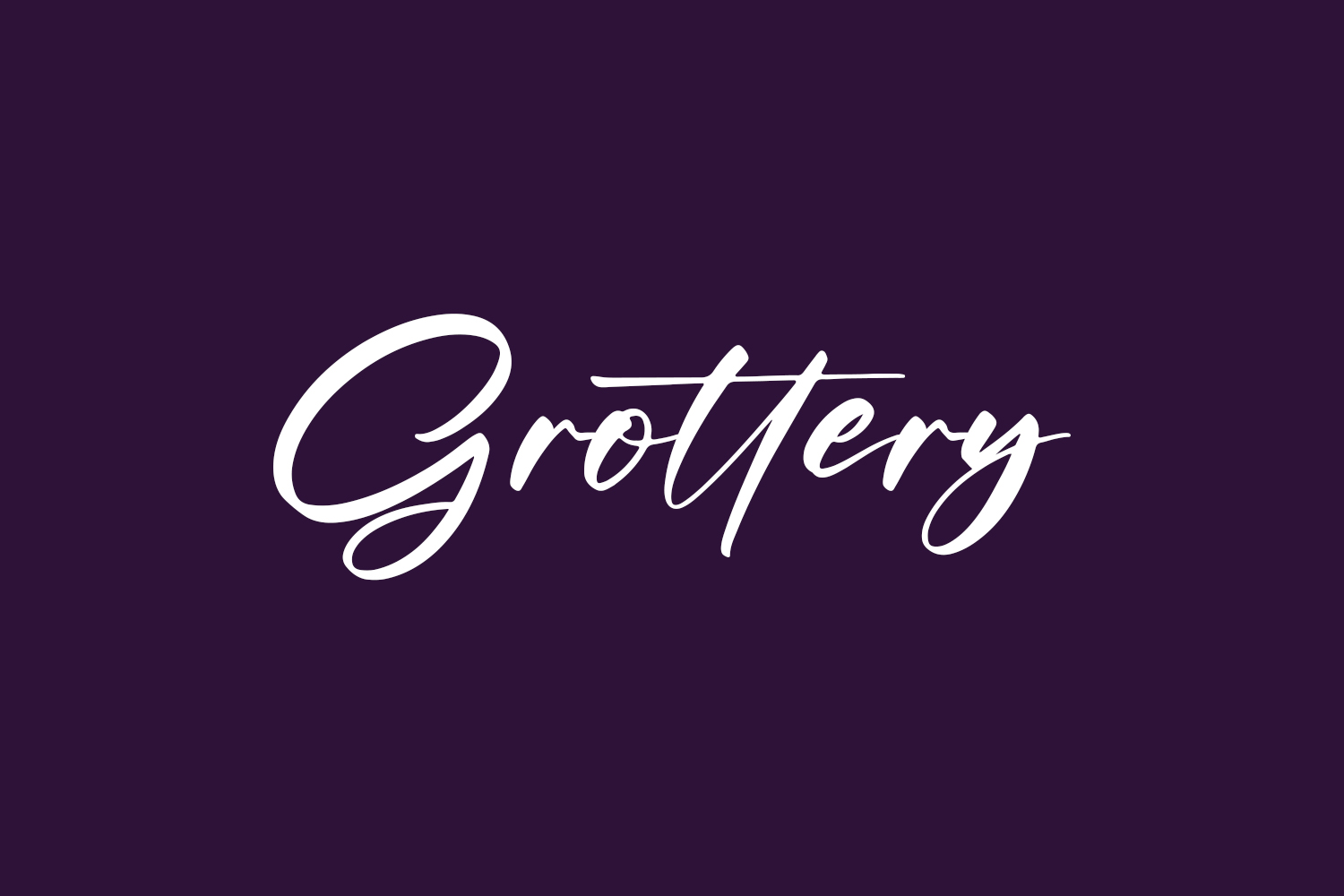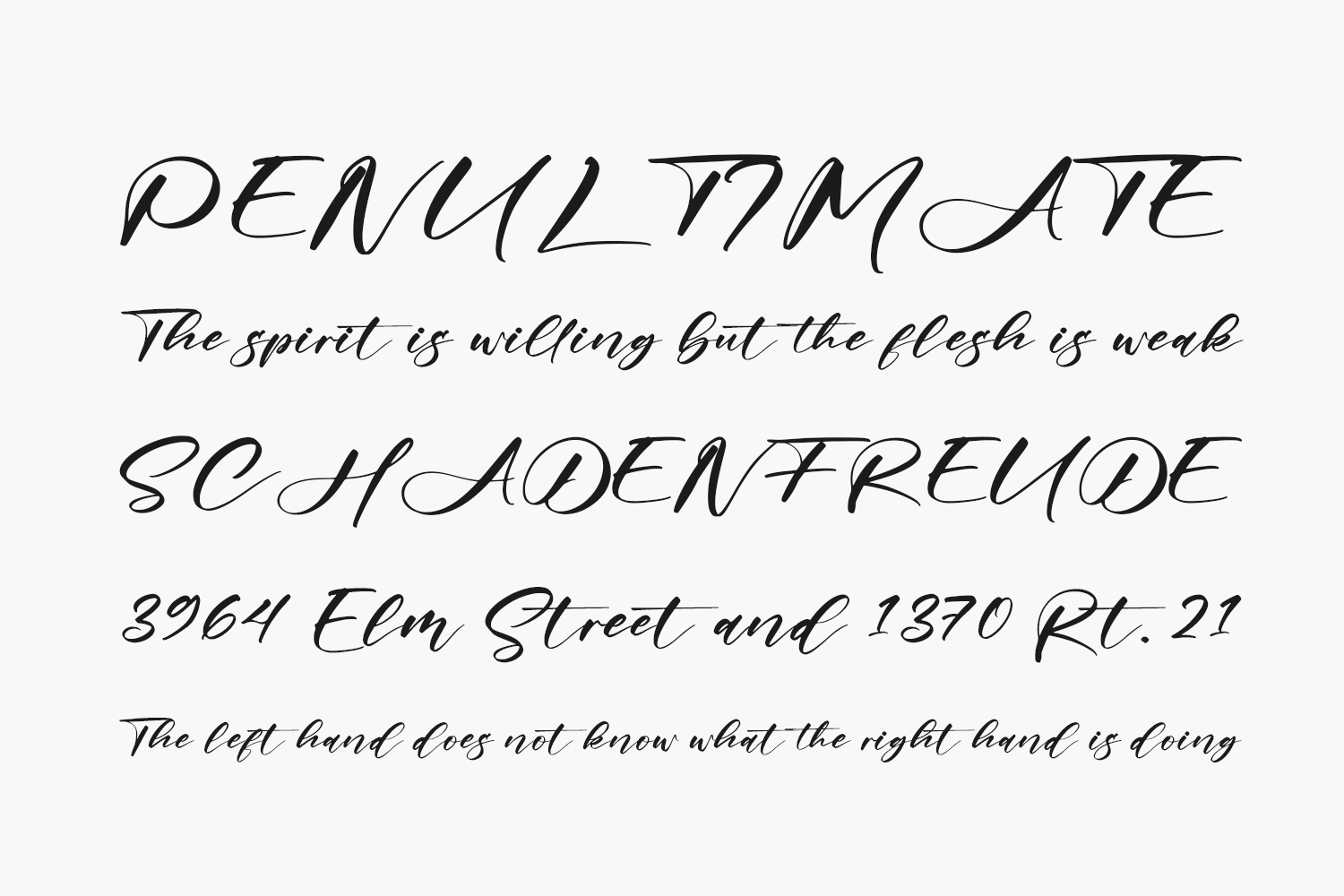
Grottery Free Font presents a contemporary script font ideal for a multitude of projects, including logos, branding, homeware designs, product packaging, mugs, quotes, posters, shopping bags, and various other creations seeking an exquisite script style. Grottery Free Font is free for personal use only. Please purchase the full version for commercial use.
Designed by Skillyasstudio